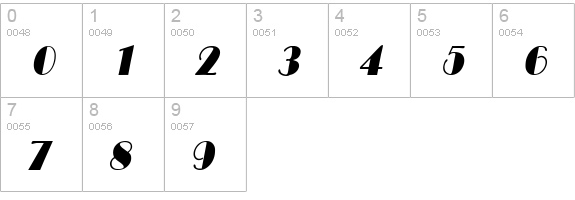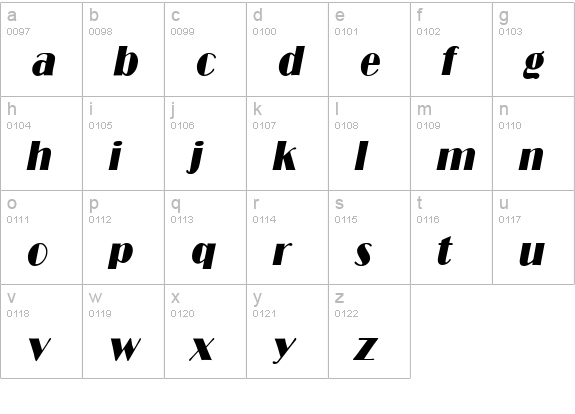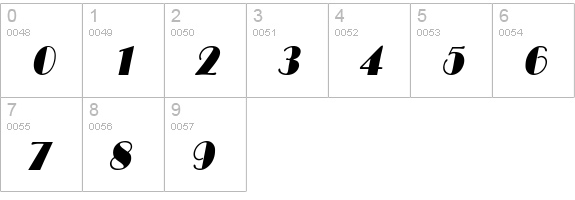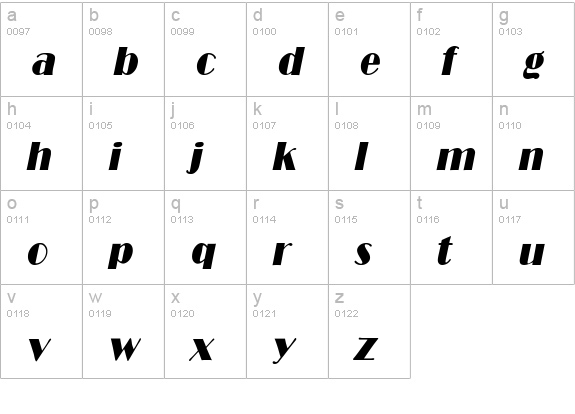
B821-Deco-Italic is a distinctive, italic variant in the B821 typeface family \xE2\x80\x94 well suited to design and typography projects.
B821-Deco-Italic font is a stylish and elegant typeface that exudes a sense of sophistication and charm. Its unique italic design adds a touch of flair to any project, making it perfect for adding a touch of class to invitations, posters, and branding materials. The ornate detailing and graceful curves of this font give it a timeless and classic appeal that is sure to catch the eye. What makes B821-Deco-Italic font even more appealing is that it is available for free download at FontsMarket.com. This means you can easily access this beautiful typeface and use it in your projects without any cost. Whether you're a designer looking to enhance your creations or a business owner wanting to elevate your brand, B821-Deco-Italic font is a versatile and stylish choice that won't break the bank. Download it today and add a touch of elegance to your designs!